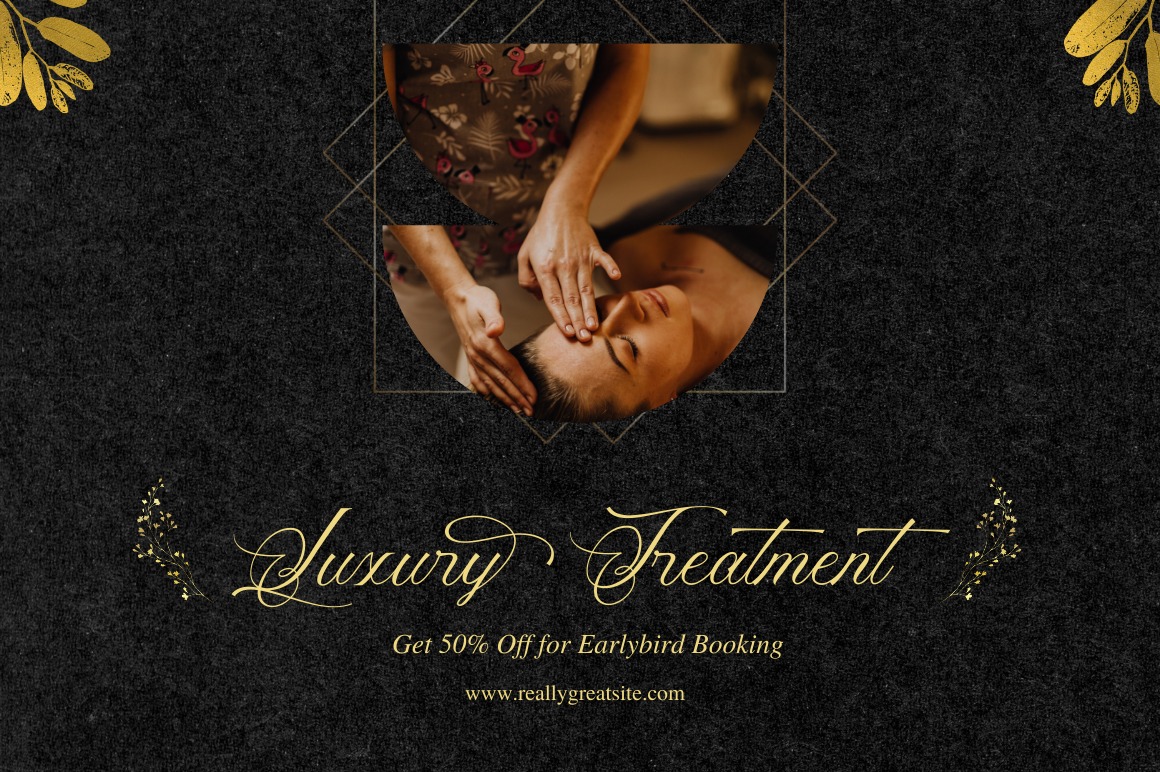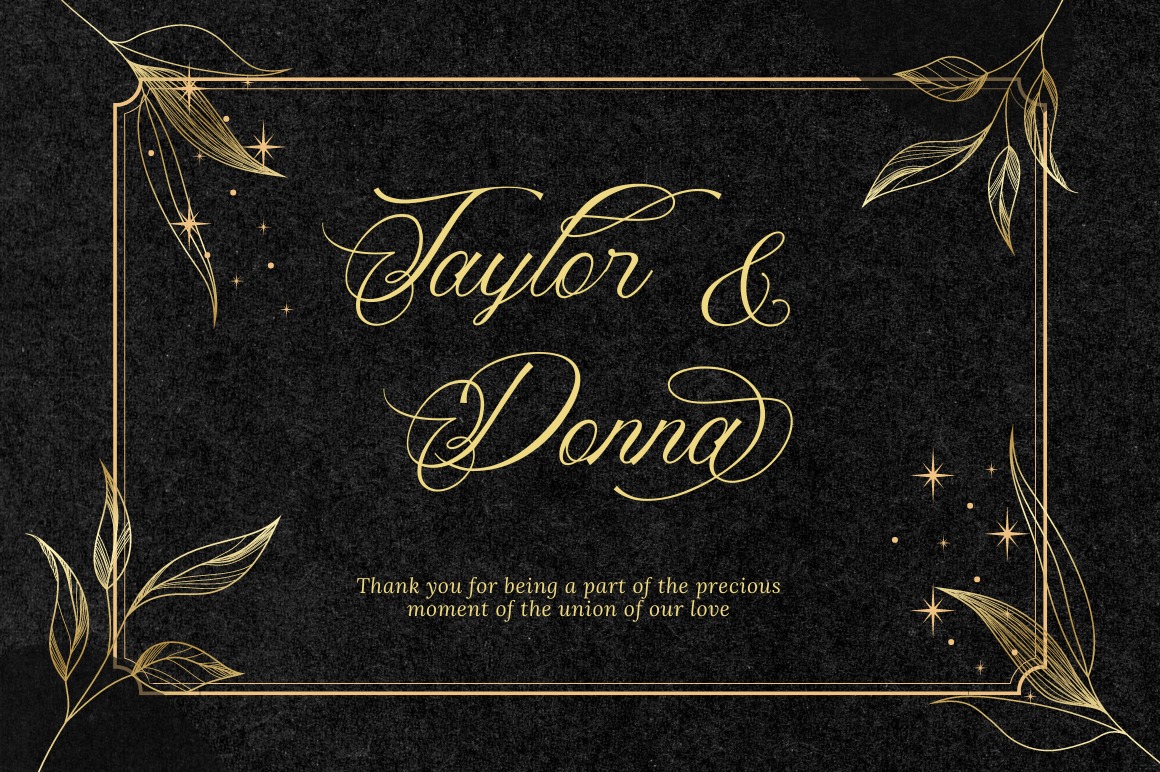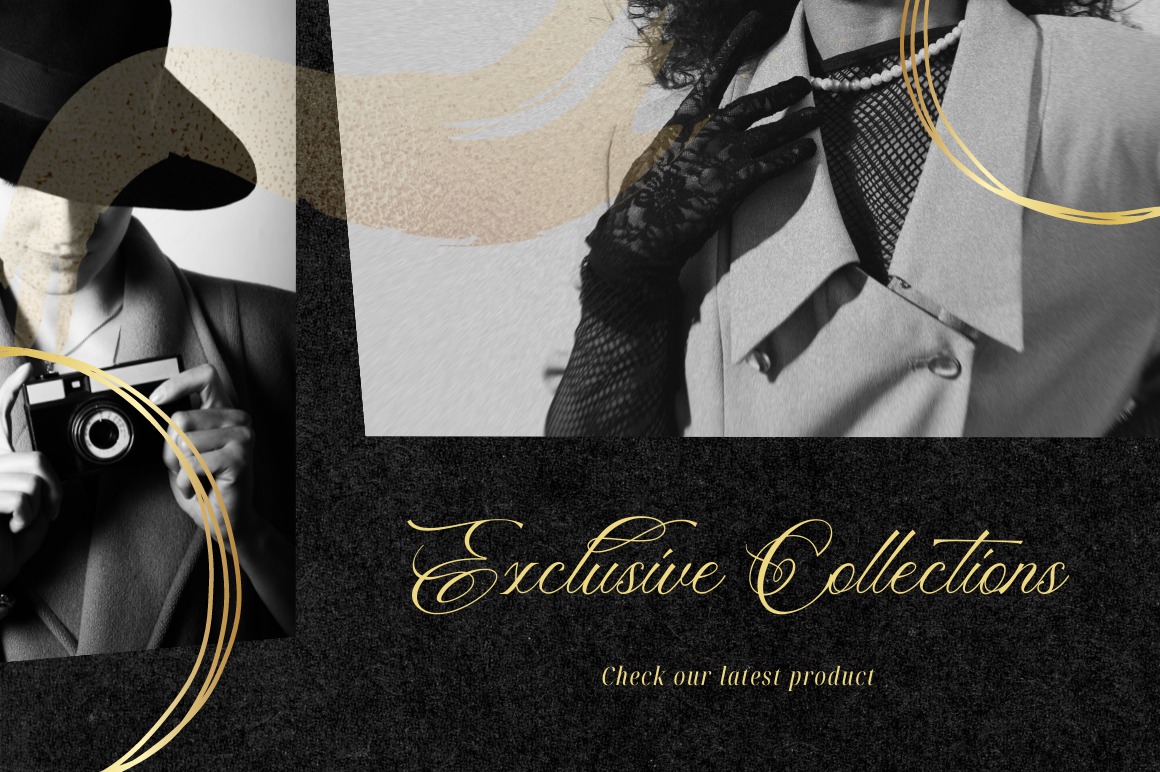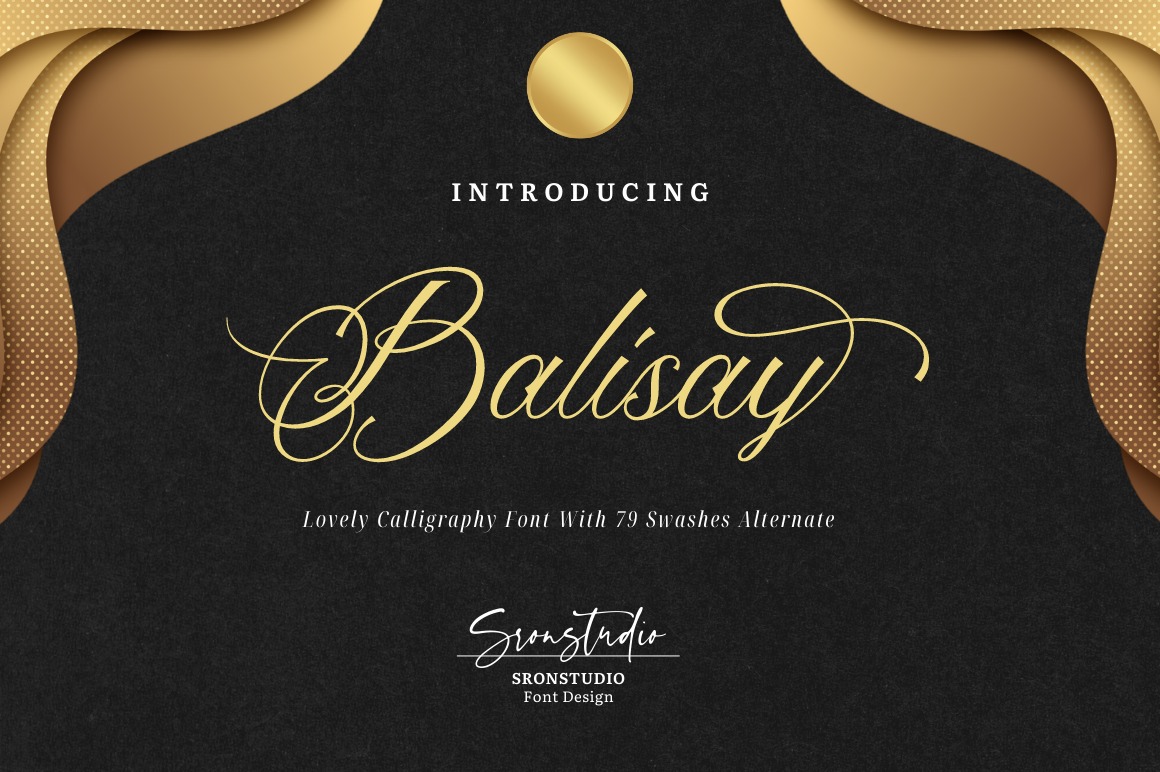
Balisay Font
Balisay Calligraphy Font
This is a beautiful script for those who want to perfect their designs with elegance and style. It’s designed and shared by Sronstudio. Perfect for branding, invitation, stationery, wedding designs, social media posts, advertisements, product packaging, product designs, label, photography, watermark, special events, and more.